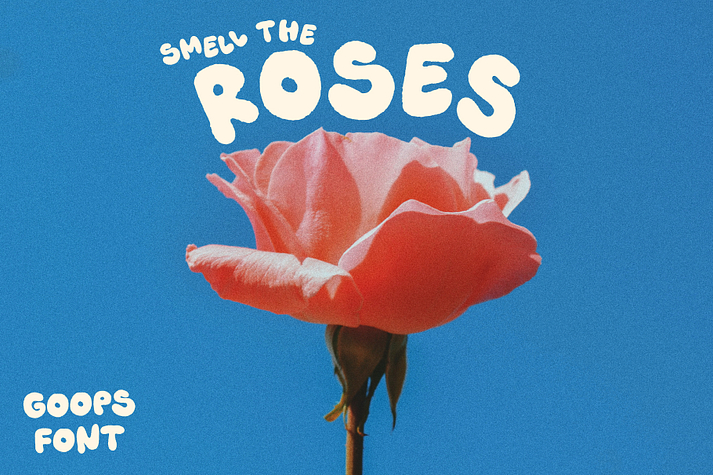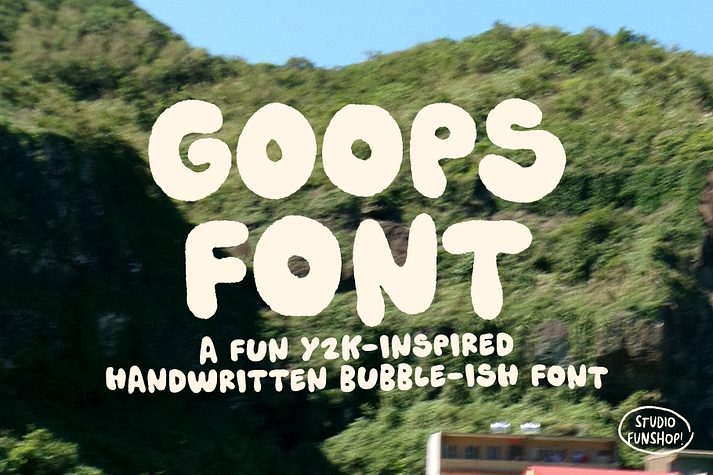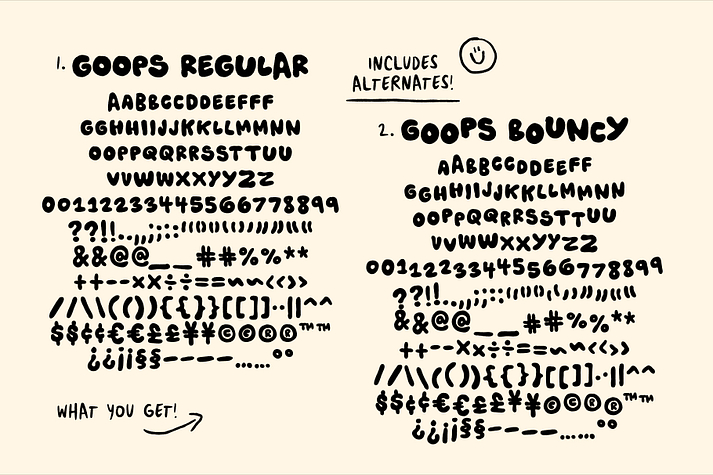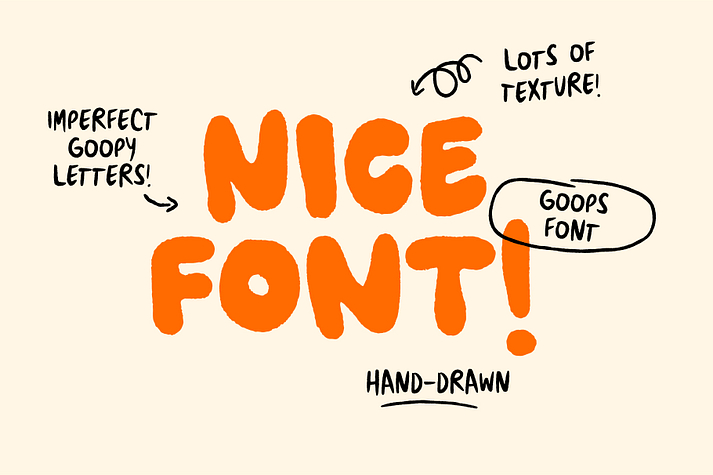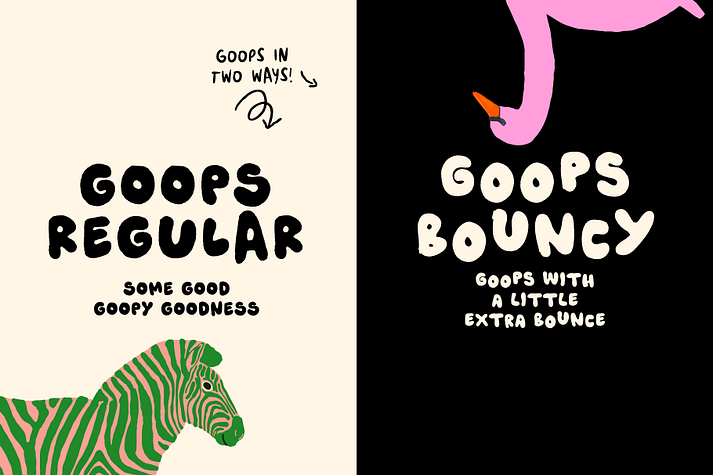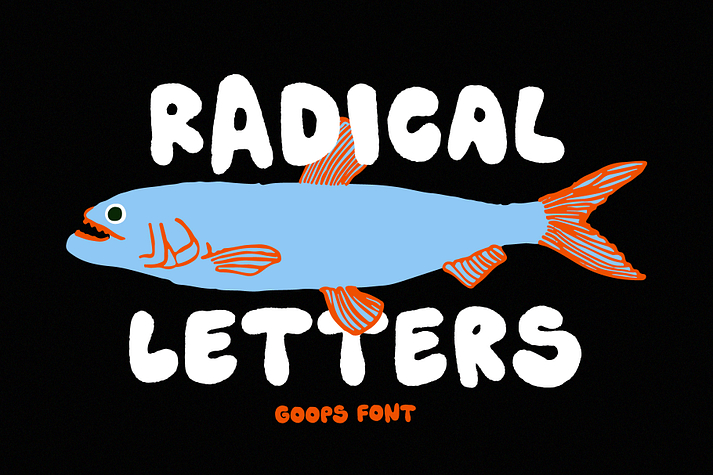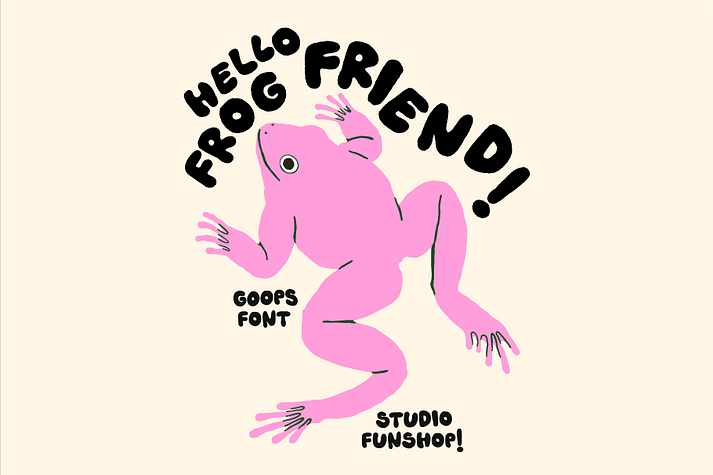
GOOPS
Goops is a display sans font family. This typeface has two styles and was published by Studio Funshop.
Introducing Goops! A fun Y2K-inspired handwritten bubble font in two styles, regular and bouncy! I mixed a bit of texture and a bit of goopy-ness to create a wonderfully imperfect and unique font. Plus, this font includes alternates for extra handmade goodness!
Also great for logos, quotes, art, branding and more! Enjoy!
What’s in the font? Uppercase Letters A-Z! Numbers! Symbols! Punctuation! Alternates! (see slides!)